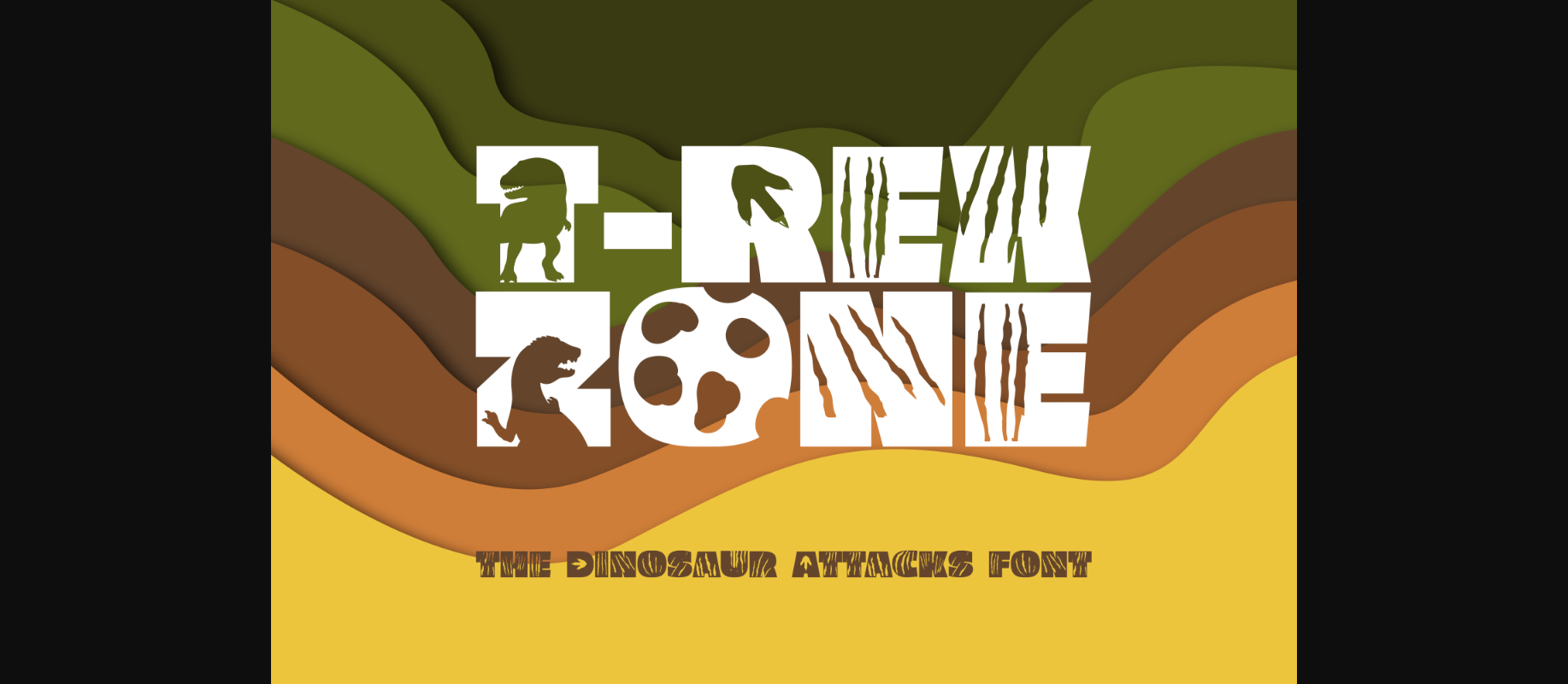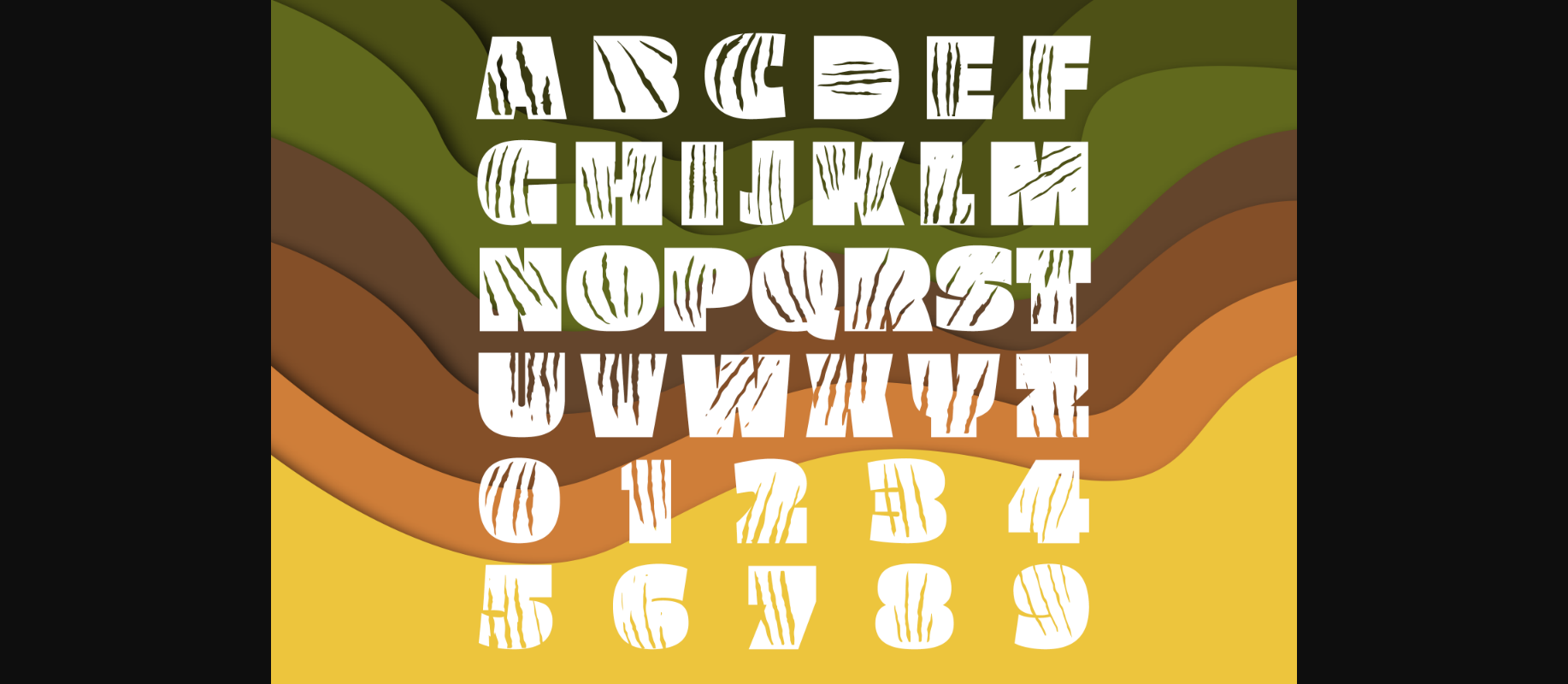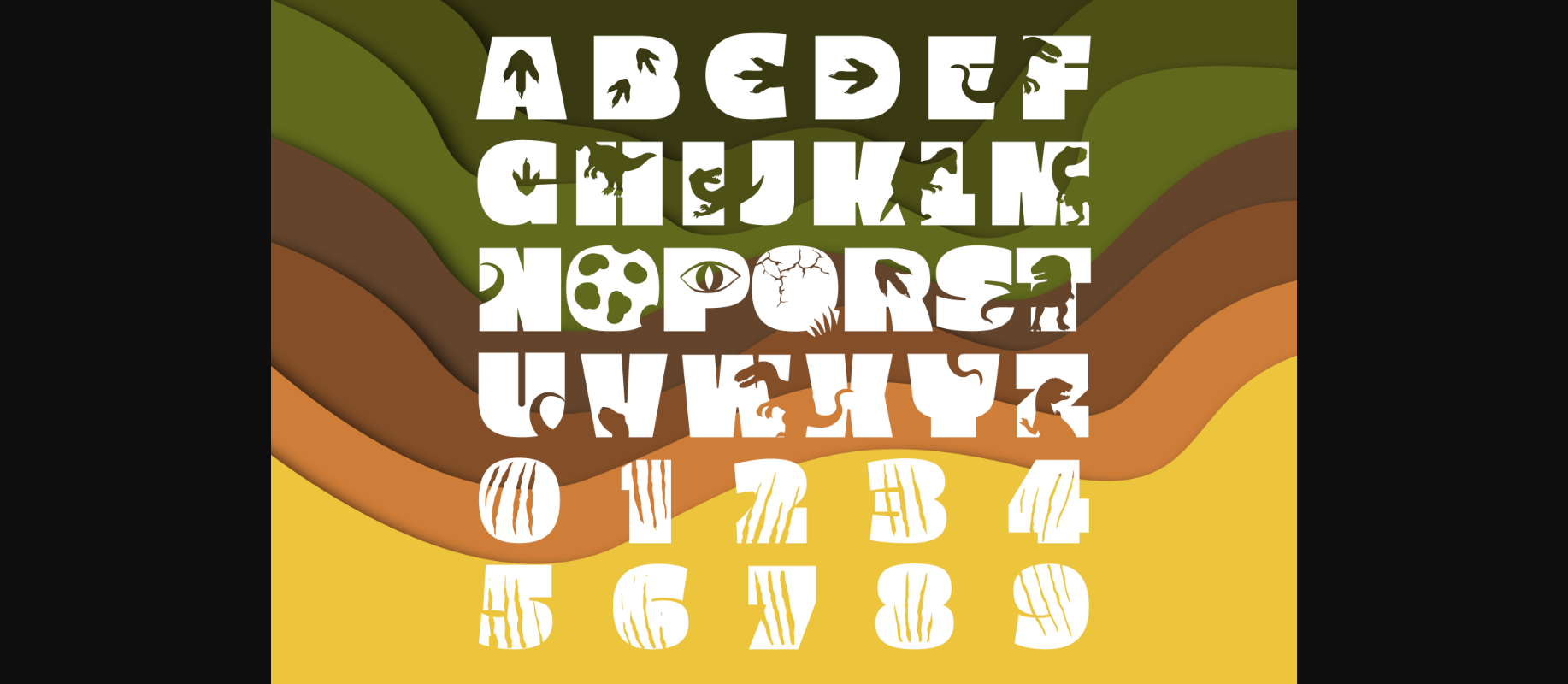
T-Rex Zone Font
About T-Rex Zone Font
T-Rex Zone is a cool, fun and thick lettered decorative font. Whether you use it for cartoon related designs, children games or just any creation that requires a lovely touch, this font will be an amazing choice.